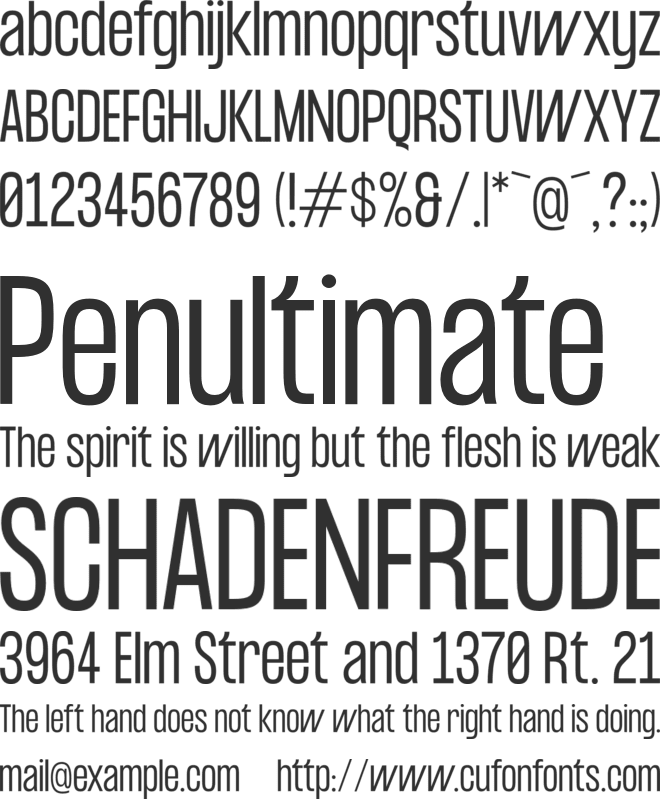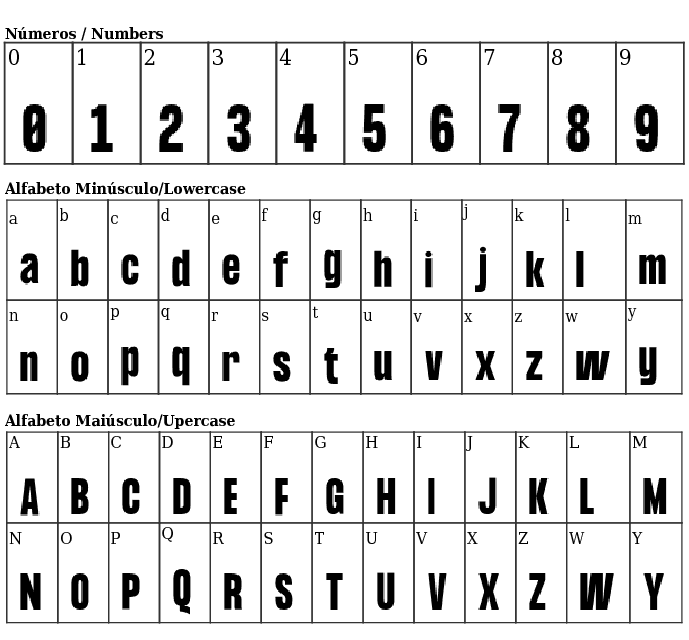
Formula Condensed Font
Formula Condensed Font - A condensed free font with 5 weights and wide alternates.
A condensed free font with 5 weights and wide alternates.